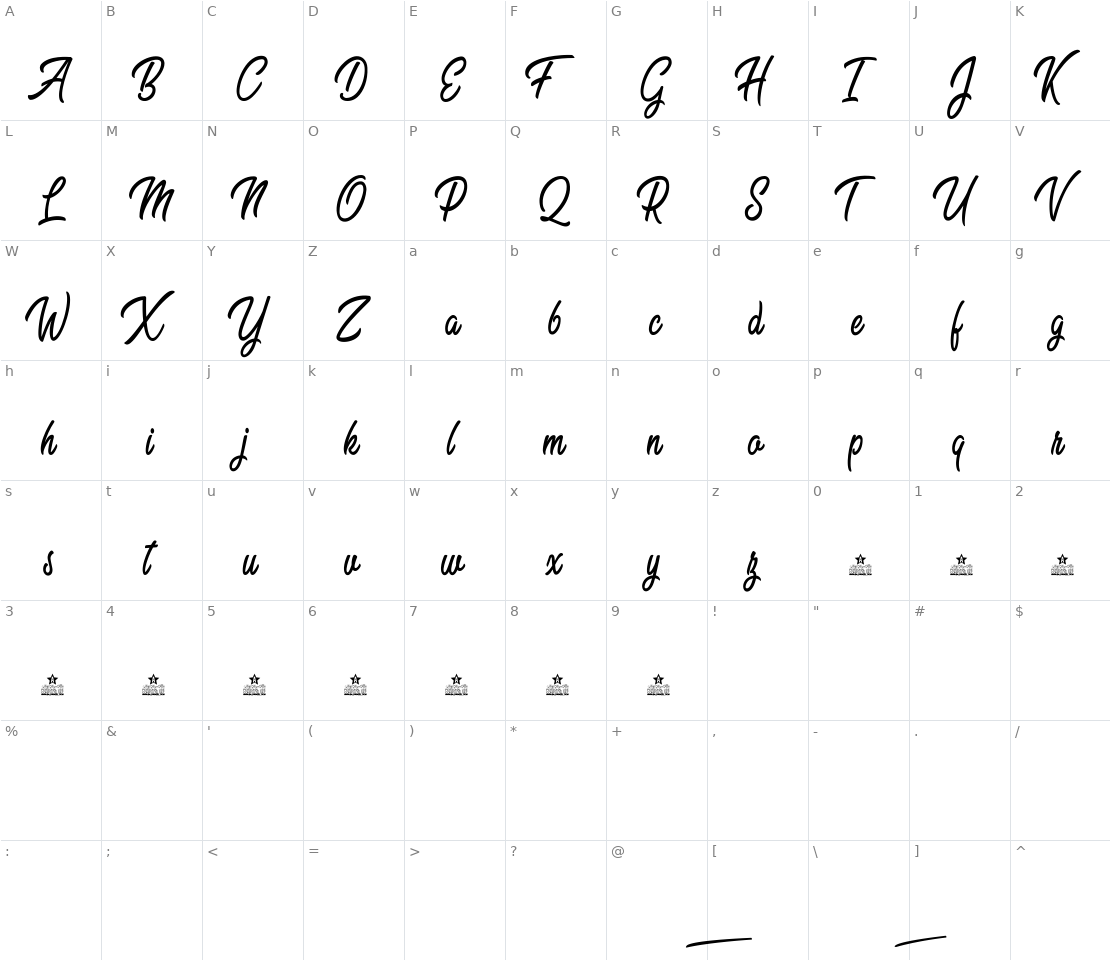
Sweet Easy
Sweet Easy is a bold brush script from Billy Argel with connected, flowing letterforms that move with real energy across the page. The strokes feel loose and confident, like someone working quickly with a loaded brush, giving it a casual warmth that still carries enough weight for headlines and poster work. Its handwritten character keeps things approachable and modern without looking overly polished.